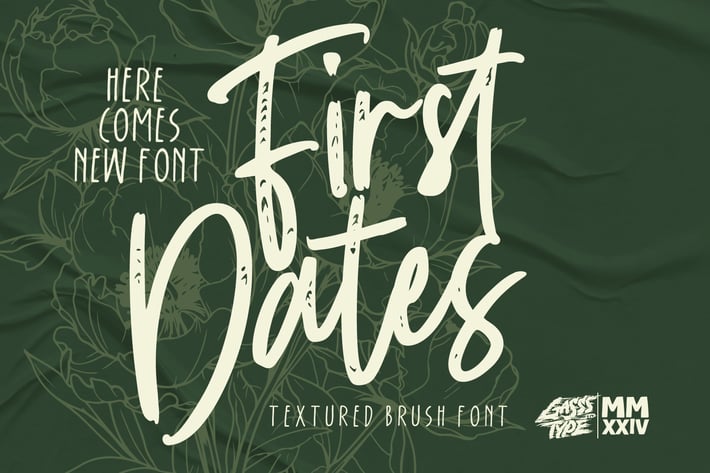
First Dates – Beautiful Brush Font
First Dates – Beautiful Brush Font for Elegant, Handcrafted Designs
Perfect for crafting stunning invitations, romantic branding, and graceful social media graphics, First Dates is a beautiful brush font that combines the elegance of handcrafted lettering with a contemporary touch. With its smooth, flowing strokes and charming personality, First Dates adds a refined and artistic flair to your projects, making it ideal for designs that require a sophisticated and personal touch.
Whether you’re designing wedding invitations, stylish logos, or heartfelt quotes, First Dates’ delicate curves and fluid lines bring a sense of elegance and warmth to your work. The font’s versatility allows it to shine in both formal and casual contexts, making it a valuable addition to your creative toolkit.